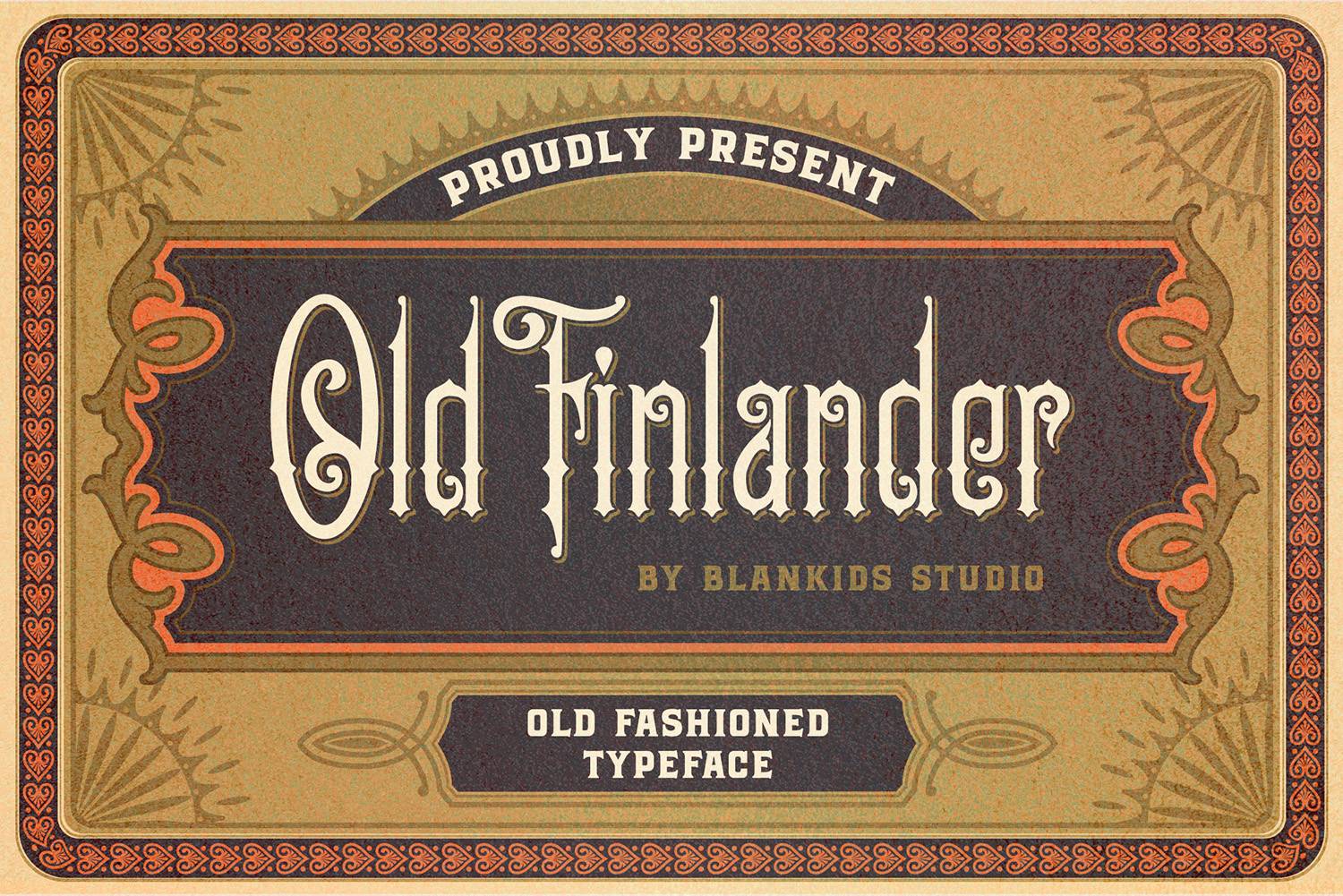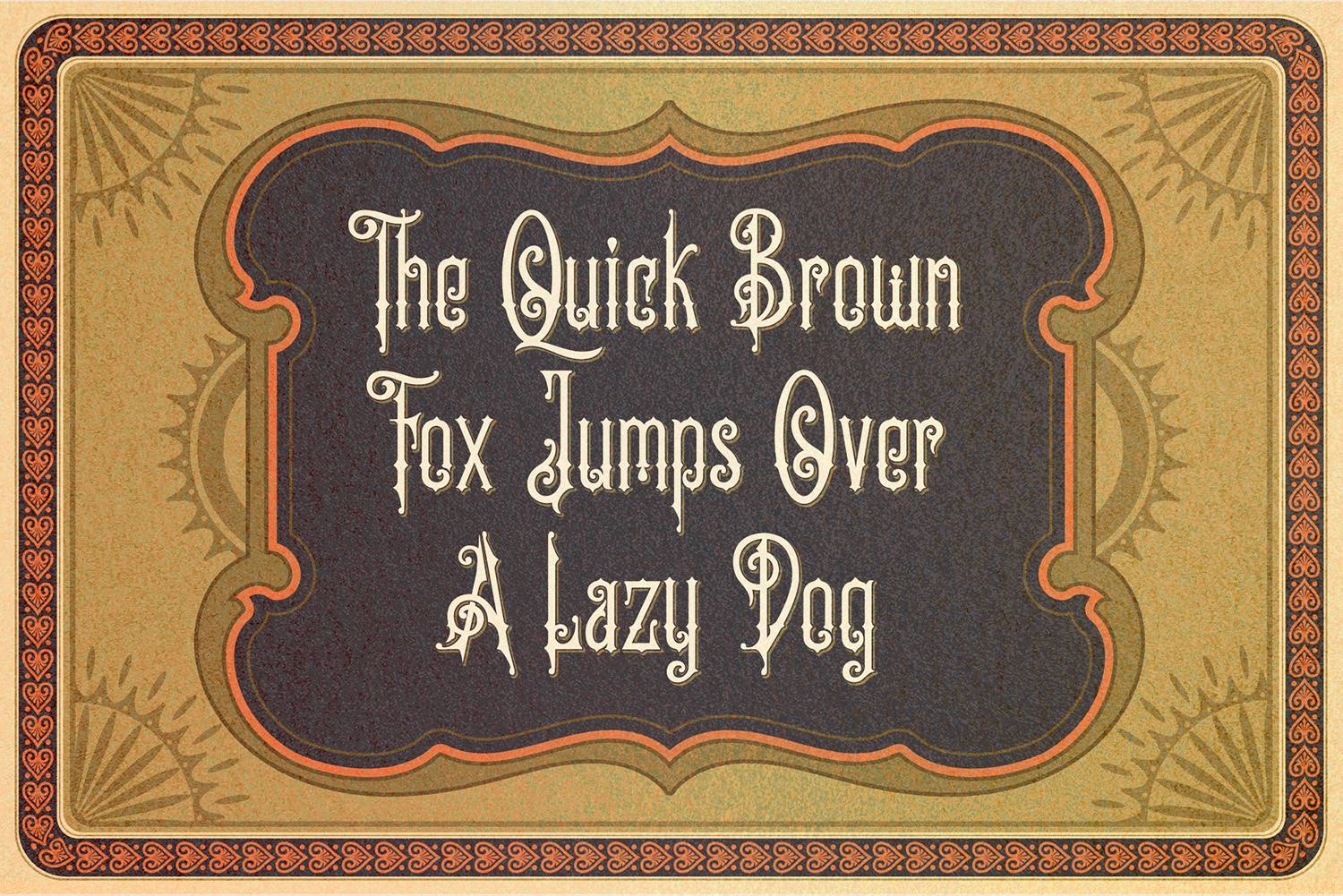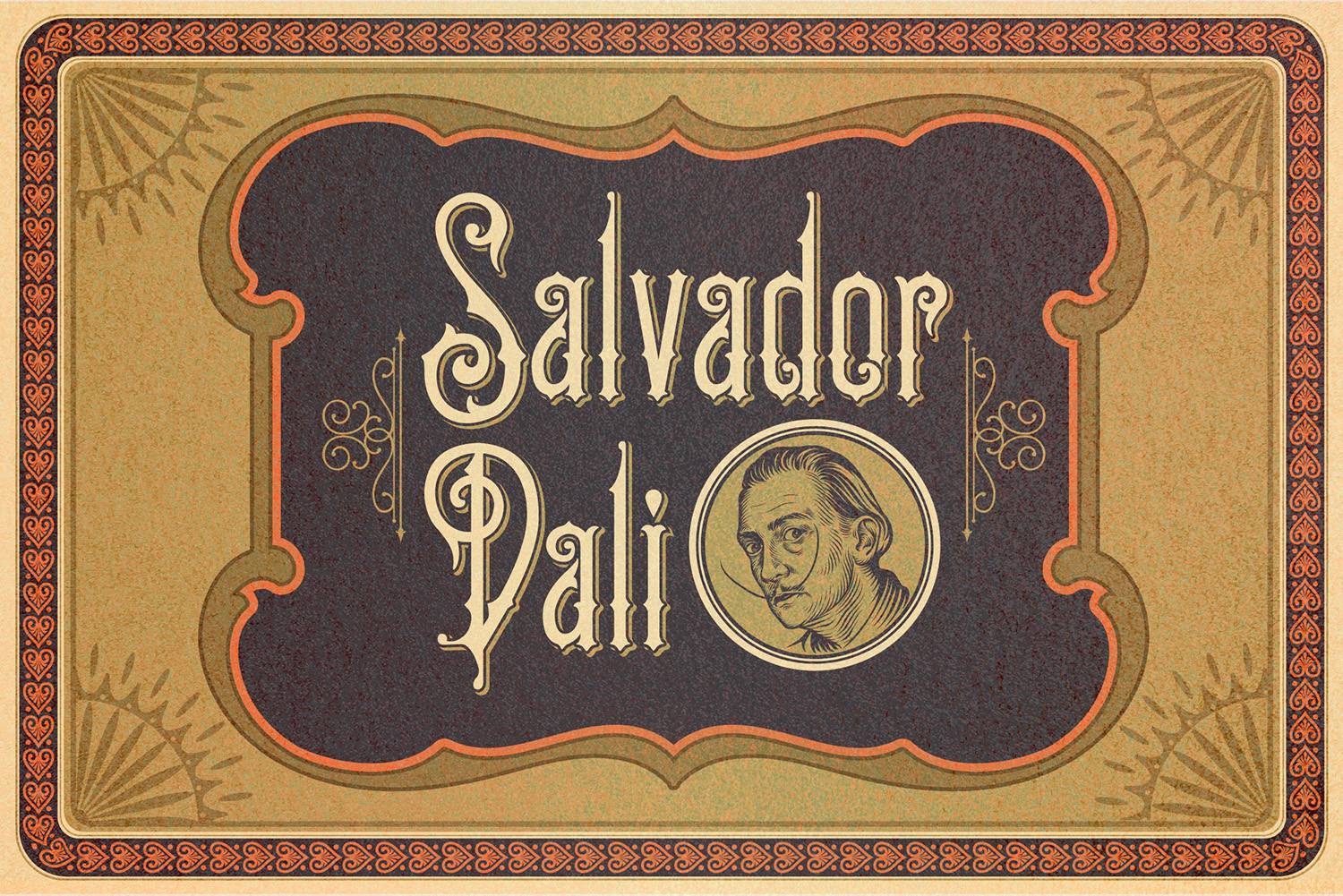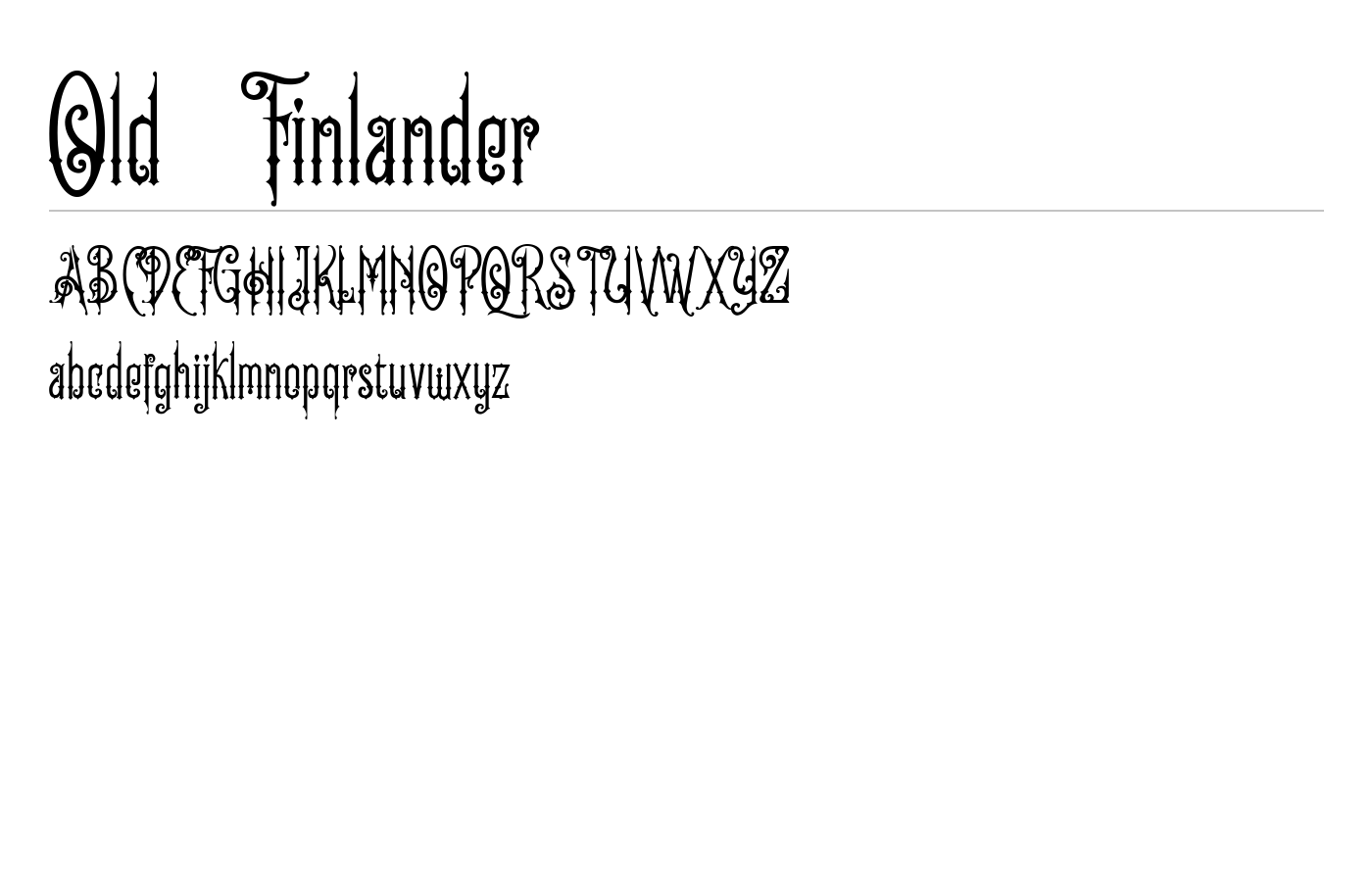
Old Finlander is a distinctive blackletter-style font with tall, narrow letterforms and intricate, spiked serif details that give it a vintage, gothic feel. Its ornate design, featuring sharp contrasts and decorative flourishes, makes it ideal for creating an old-world, mysterious atmosphere, perfect for logos, posters, or themes related to history and fantasy. This font works best in display settings where its elaborate style can be fully appreciated, rather than in body text.